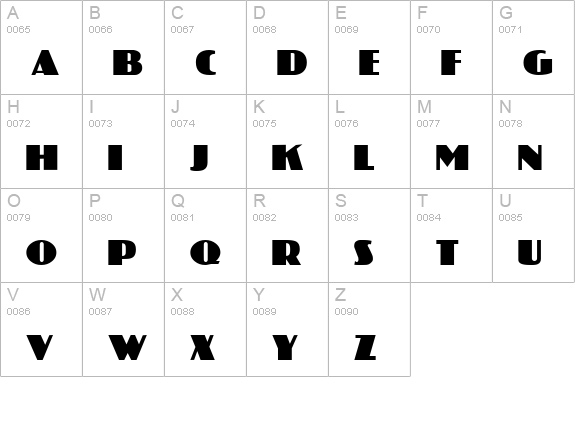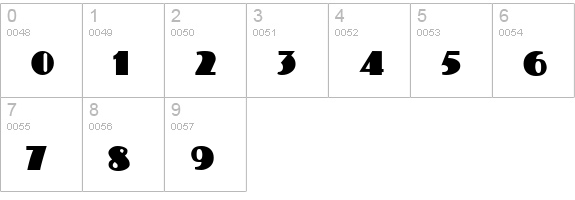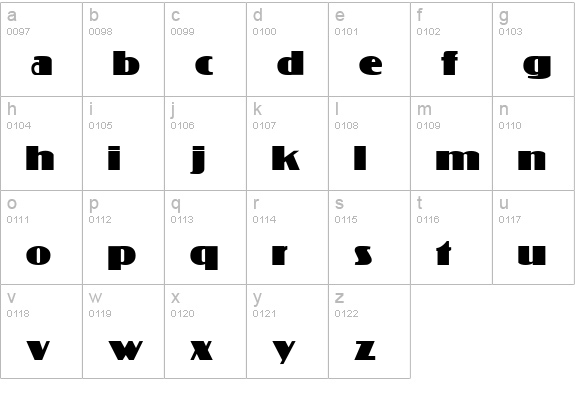
Kolossal Normal is the standard, neutral variant in the Kolossal typeface family \xE2\x80\x94 well suited to general body text, paragraphs, and standard typographic work.
Kolossal Normal font is a modern and versatile typeface that exudes sophistication and elegance. Its clean lines and balanced proportions make it perfect for a wide range of design projects, from branding to editorial design. With its timeless appeal and classic aesthetic, Kolossal Normal font is sure to make a statement in any layout. The best part? Kolossal Normal font is available for free download at FontsMarket.com! Simply head over to the website and get your hands on this stunning typeface to elevate your design projects to the next level. Don't miss out on the opportunity to add Kolossal Normal font to your font library today!